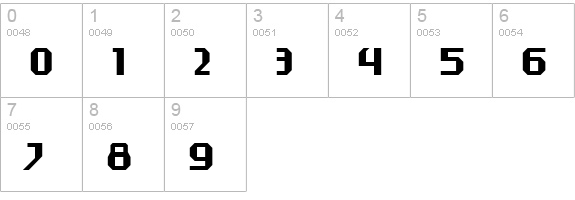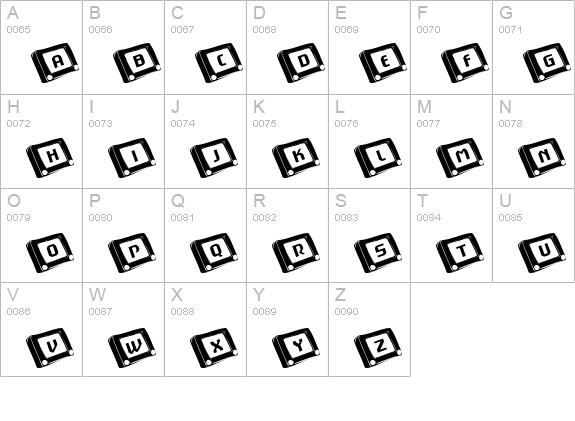
The 101! EtchASketch font is a unique and creative typeface that captures the playful essence of childhood doodles with its quirky design. This font features intricate etch-a-sketch-like lines that give it a nostalgic and whimsical feel. Perfect for adding a fun and lighthearted touch to your projects, the 101! EtchASketch font is sure to stand out and make a statement. Best of all, this charming font is available for free download at FontsMarket.com, making it easily accessible for all your creative endeavors. Whether you're designing invitations, posters, or social media graphics, the 101! EtchASketch font is a versatile choice that will add a touch of joy and playfulness to your work. Download it today and let your imagination run wild with this delightful and eye-catching font!